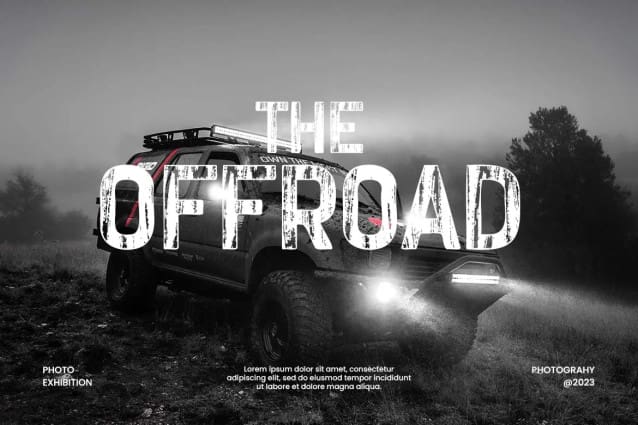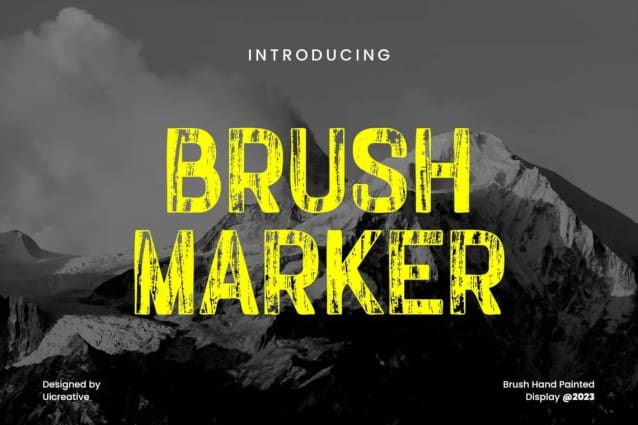
Brushmaker Font
BrushMaker Font – Hand Painted Font. The modern display font feels beautiful classy, elegant, and stylish. This font is ideally suited for a wide variety of projects, such as signature, stationery, logo, wedding, typography quotes, magazine or book covers, website headers, branding, and more. Also, fashion-related branding or editorial design displays both masculine and feminine qualities.